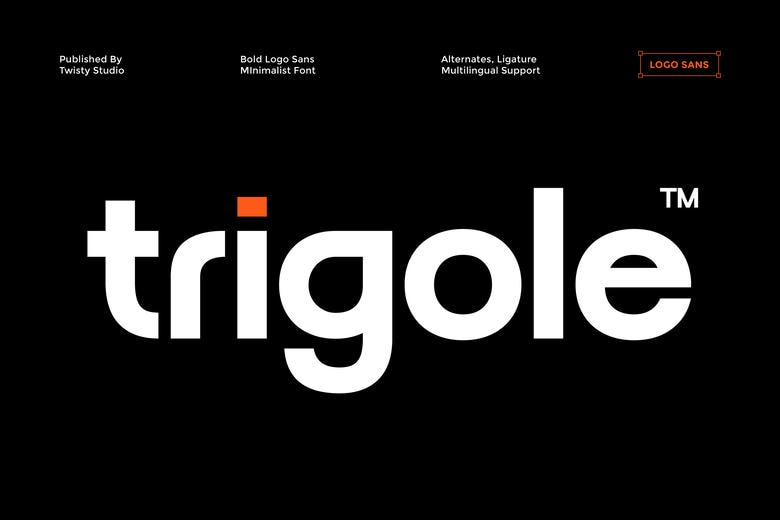
Trigole Font
Trigole is a daring minimalist sans serif font that aims to provide a powerful visual impression with clean and contemporary simplicity. With solid letterforms, proportionality, and a clean design, Trigole produces a strong but elegant appearance that does not overload with details.
Trigole Sans Serif Font